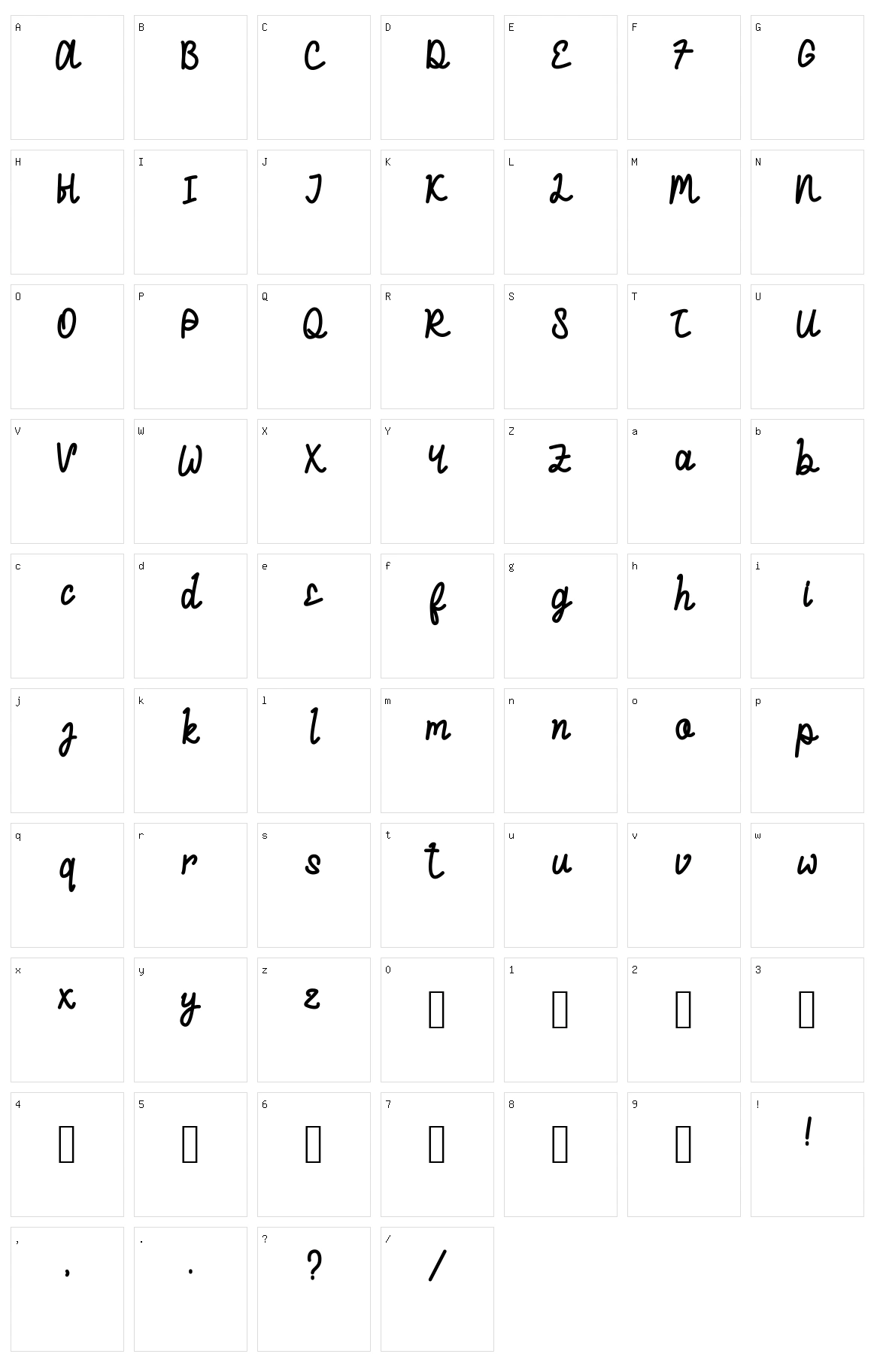
The free font Lawlieness is carefully designed by Selotype, showcasing a thoughtful balance of creativity and usability and falls under the Script font style. When you download the ZIP file, it contains only 51.23 KB of font files, making it lightweight and quick to download. Please review the license details below to understand permitted usage and distribution rights. If license information is not available, we recommend using this font for personal projects only or contacting the author directly for commercial usage permissions.